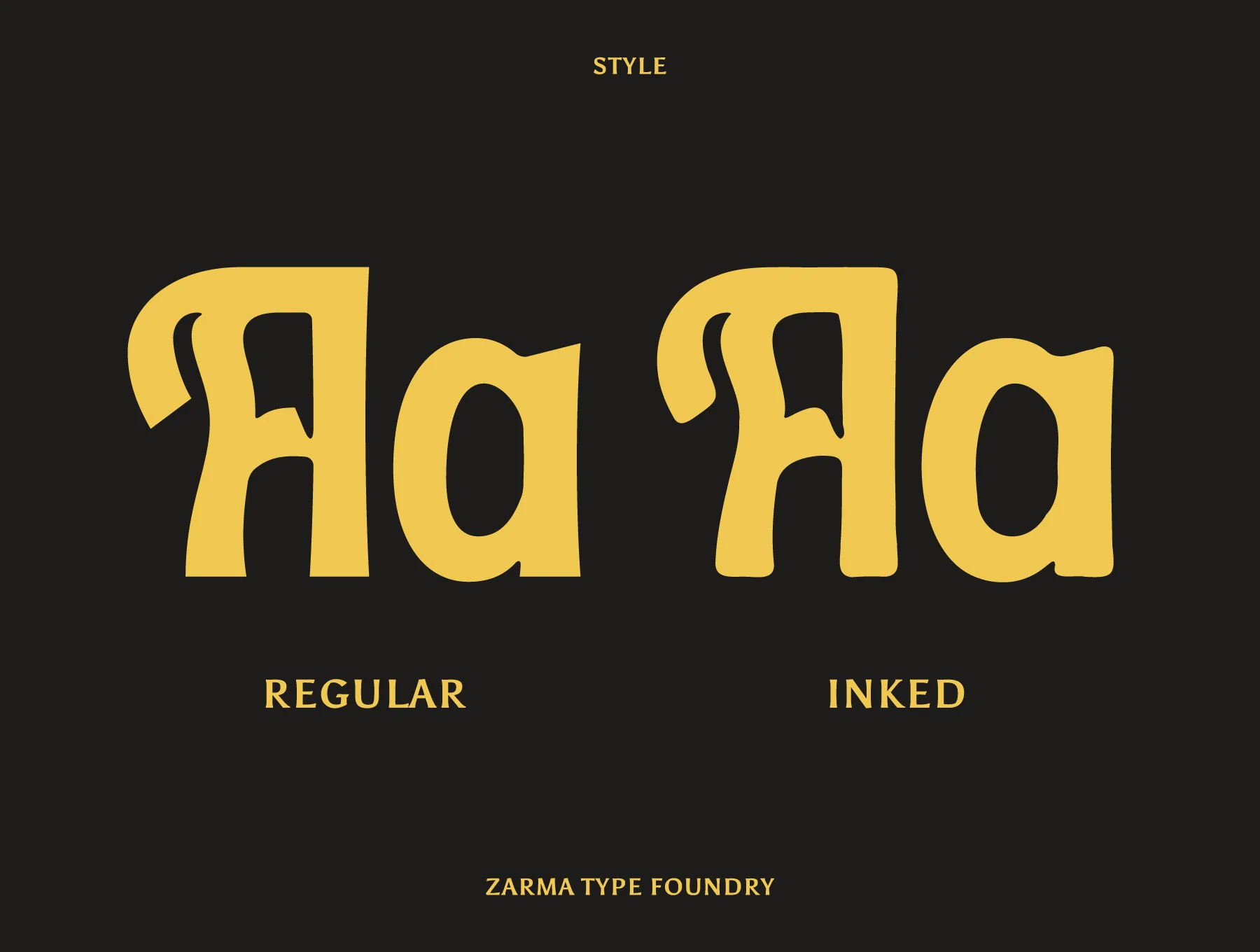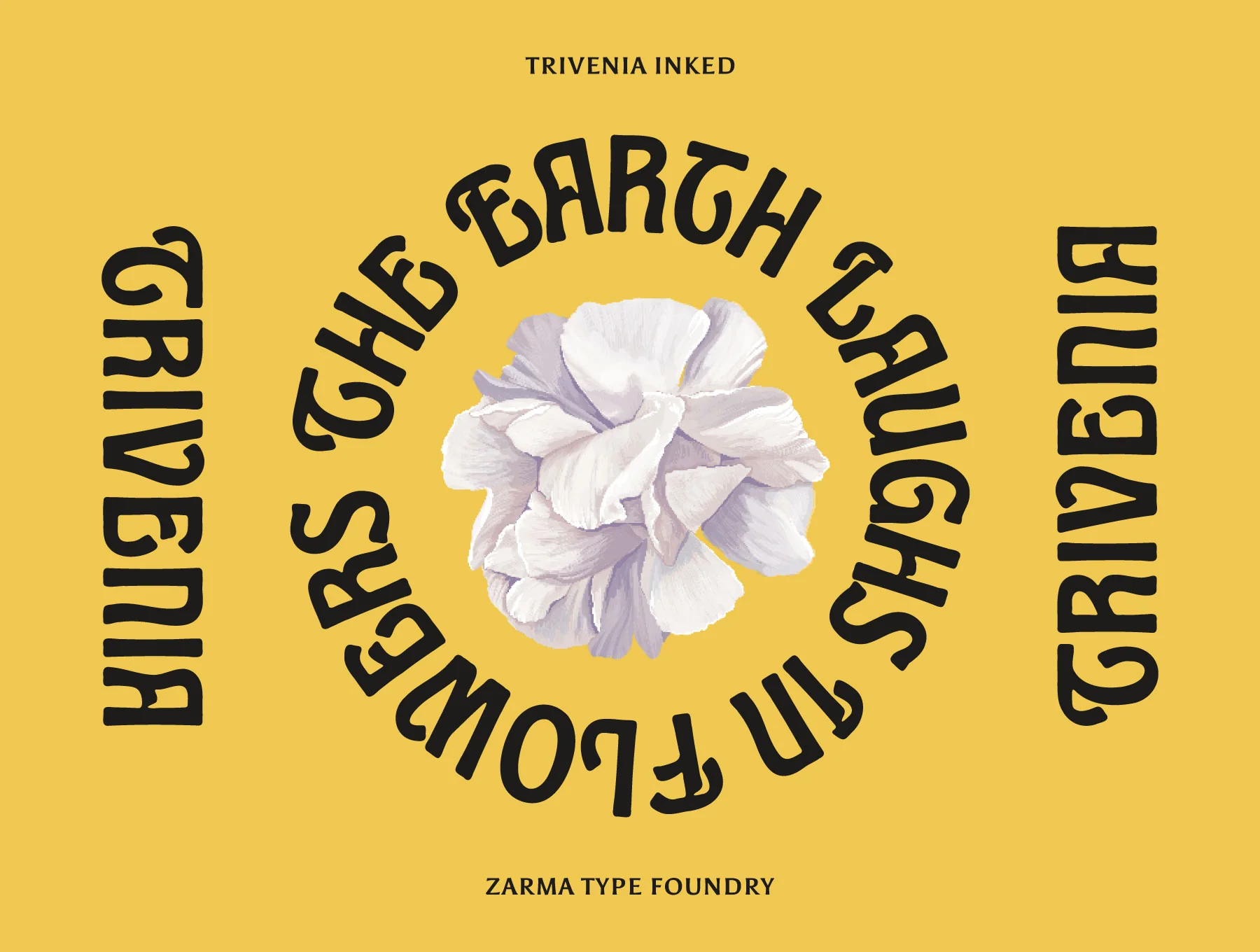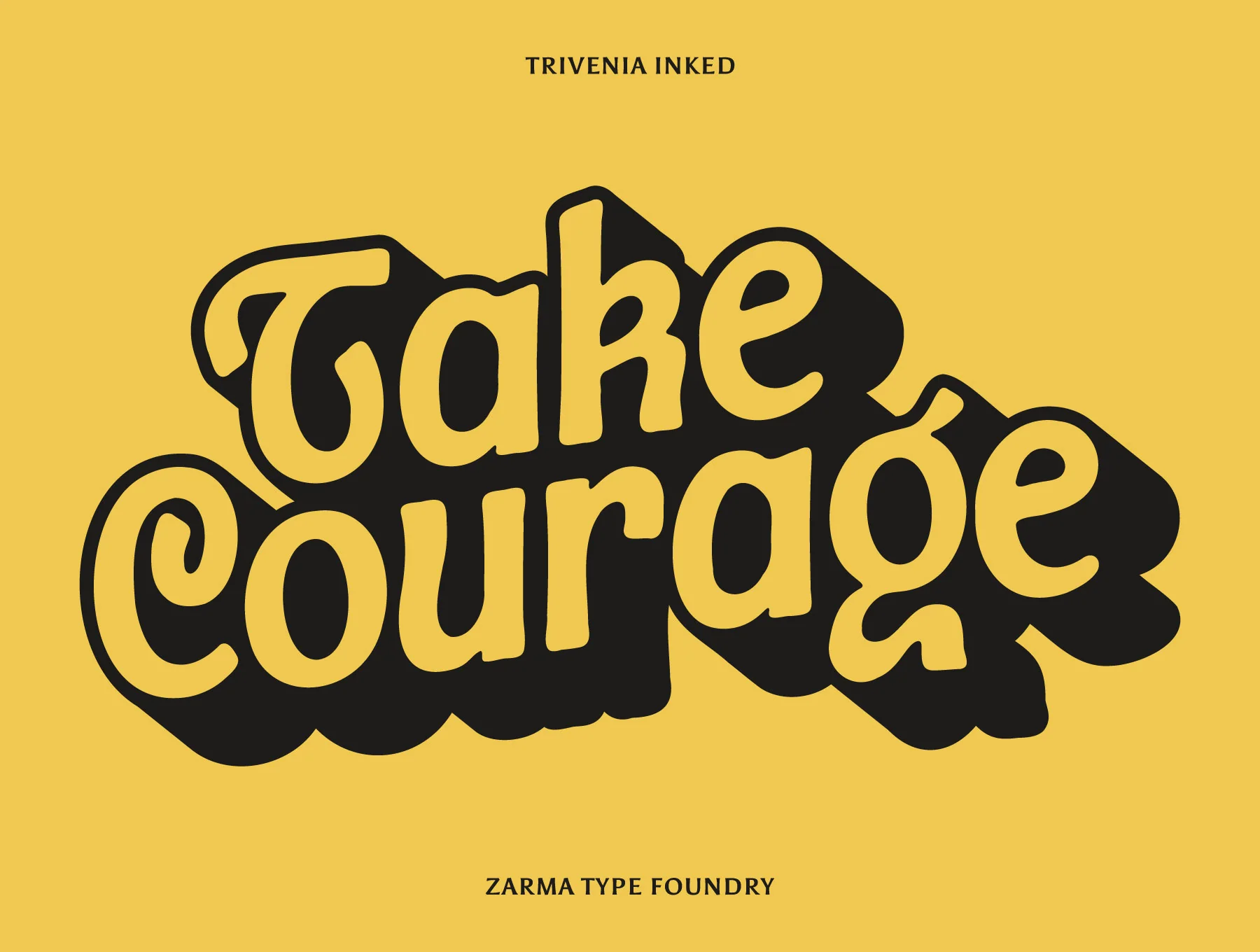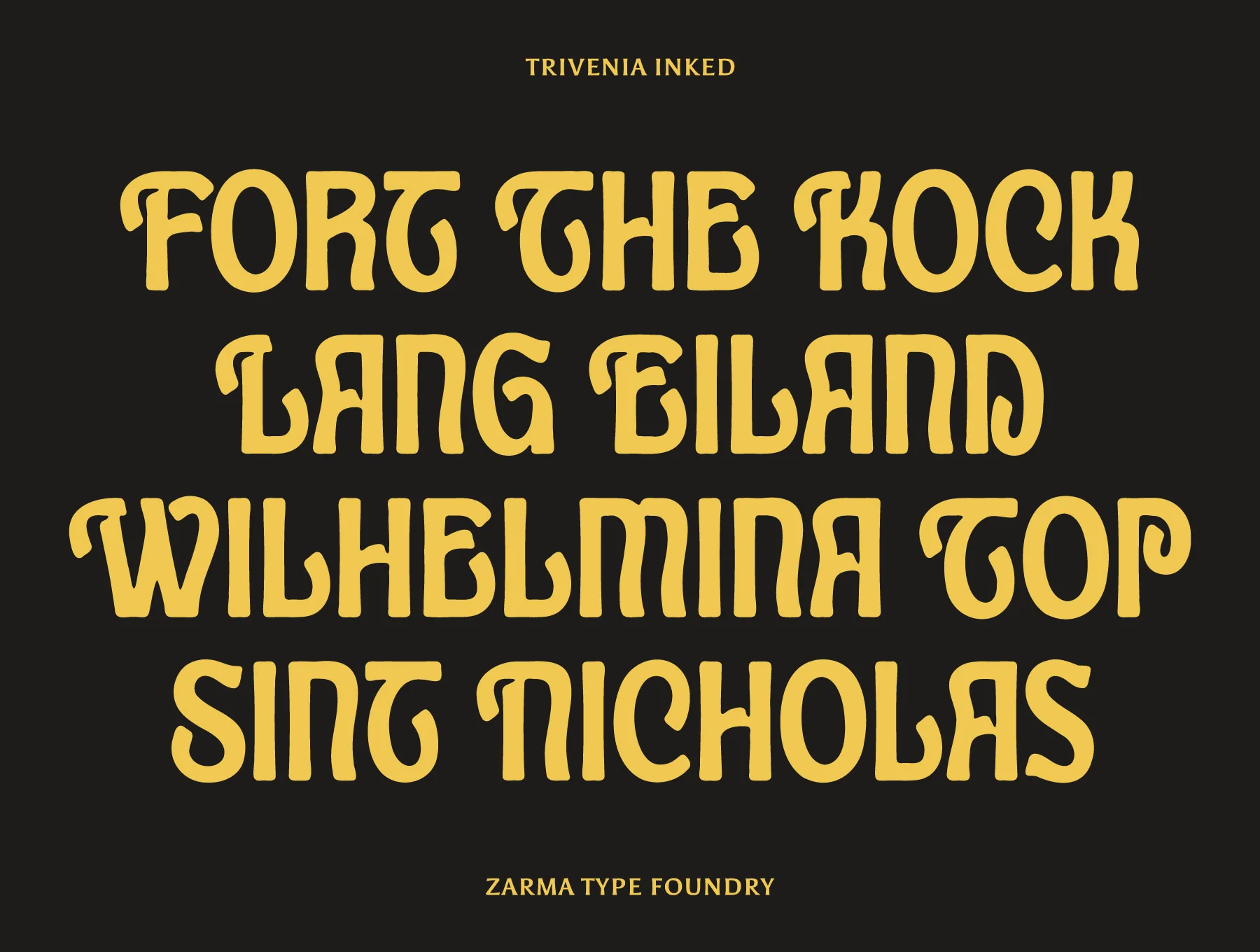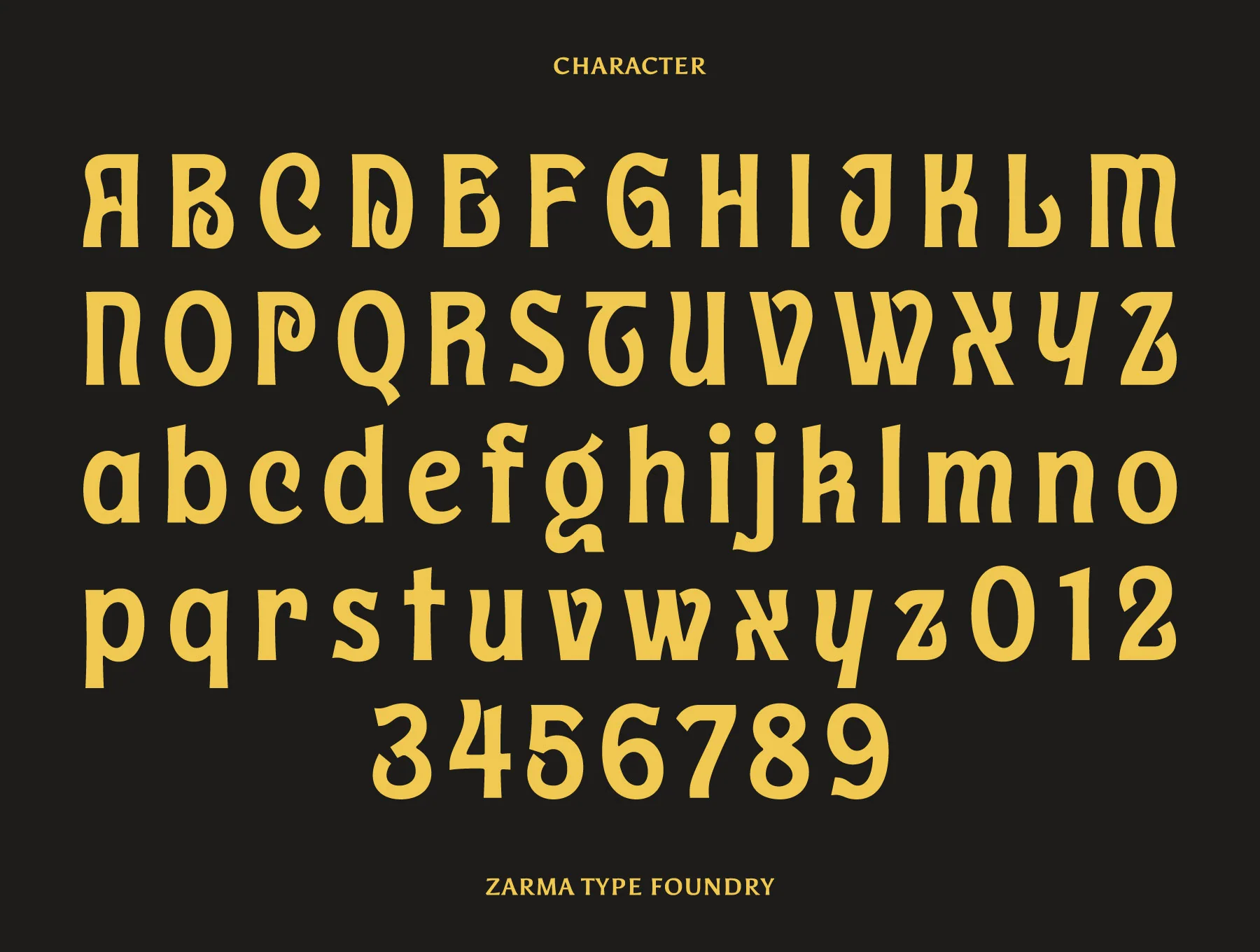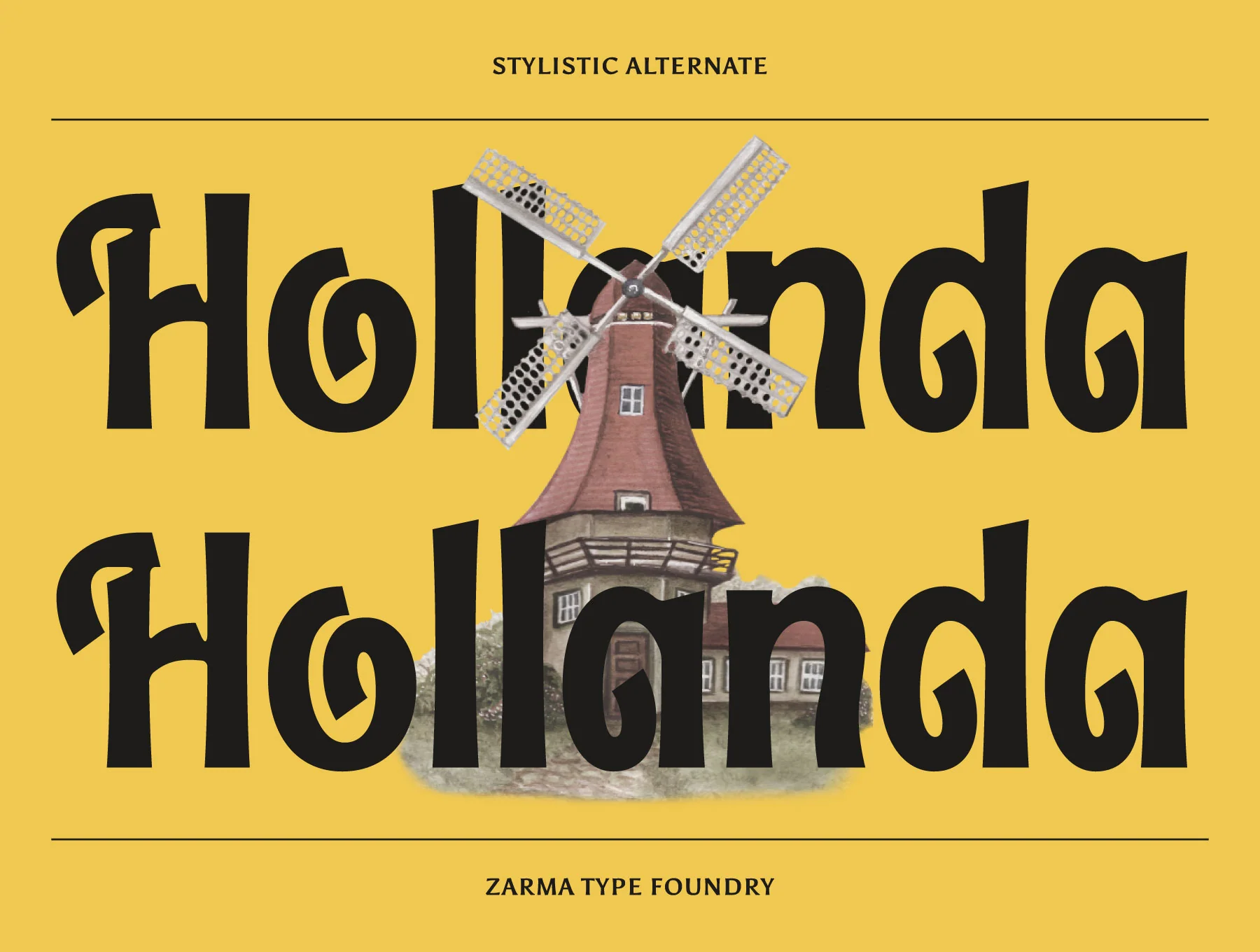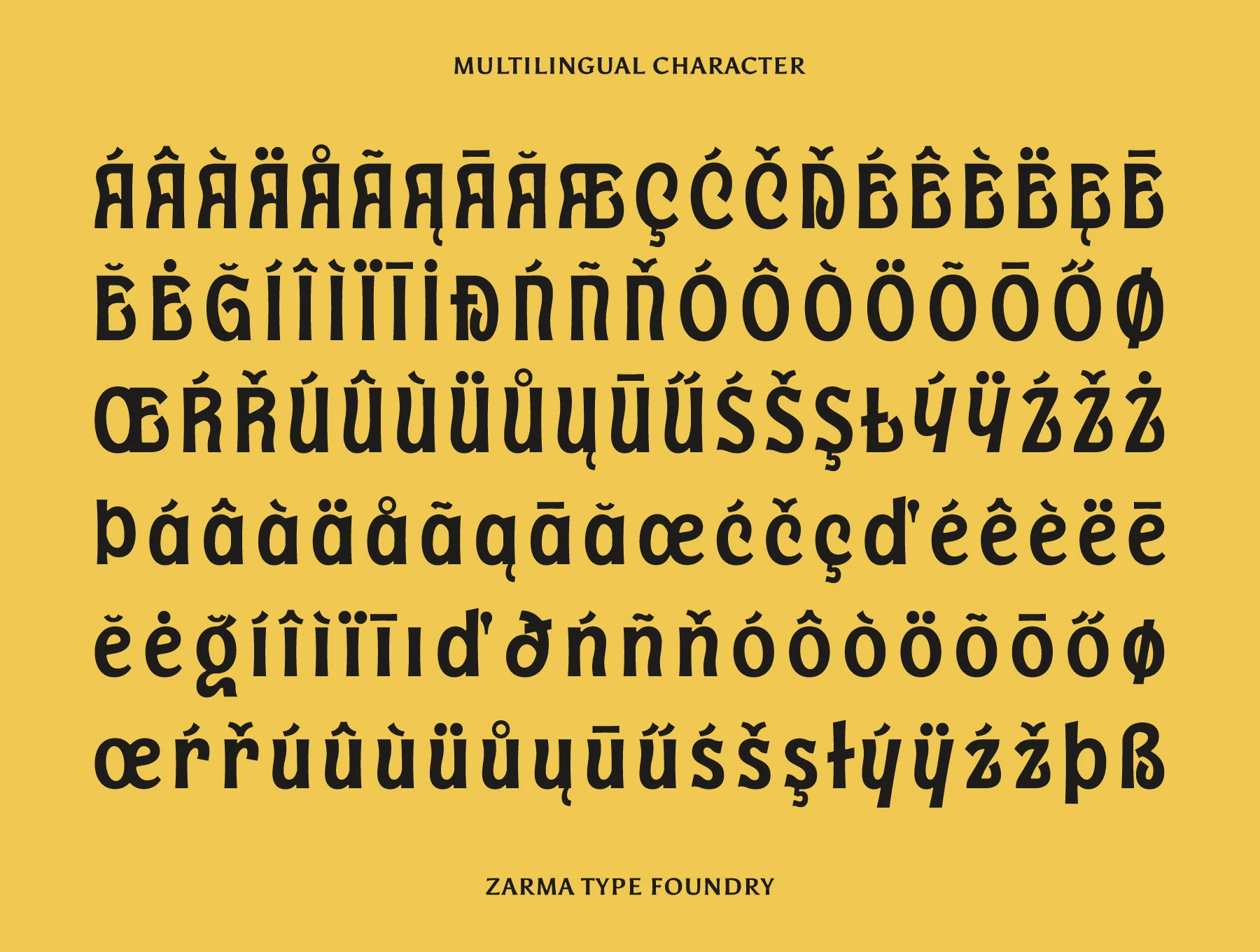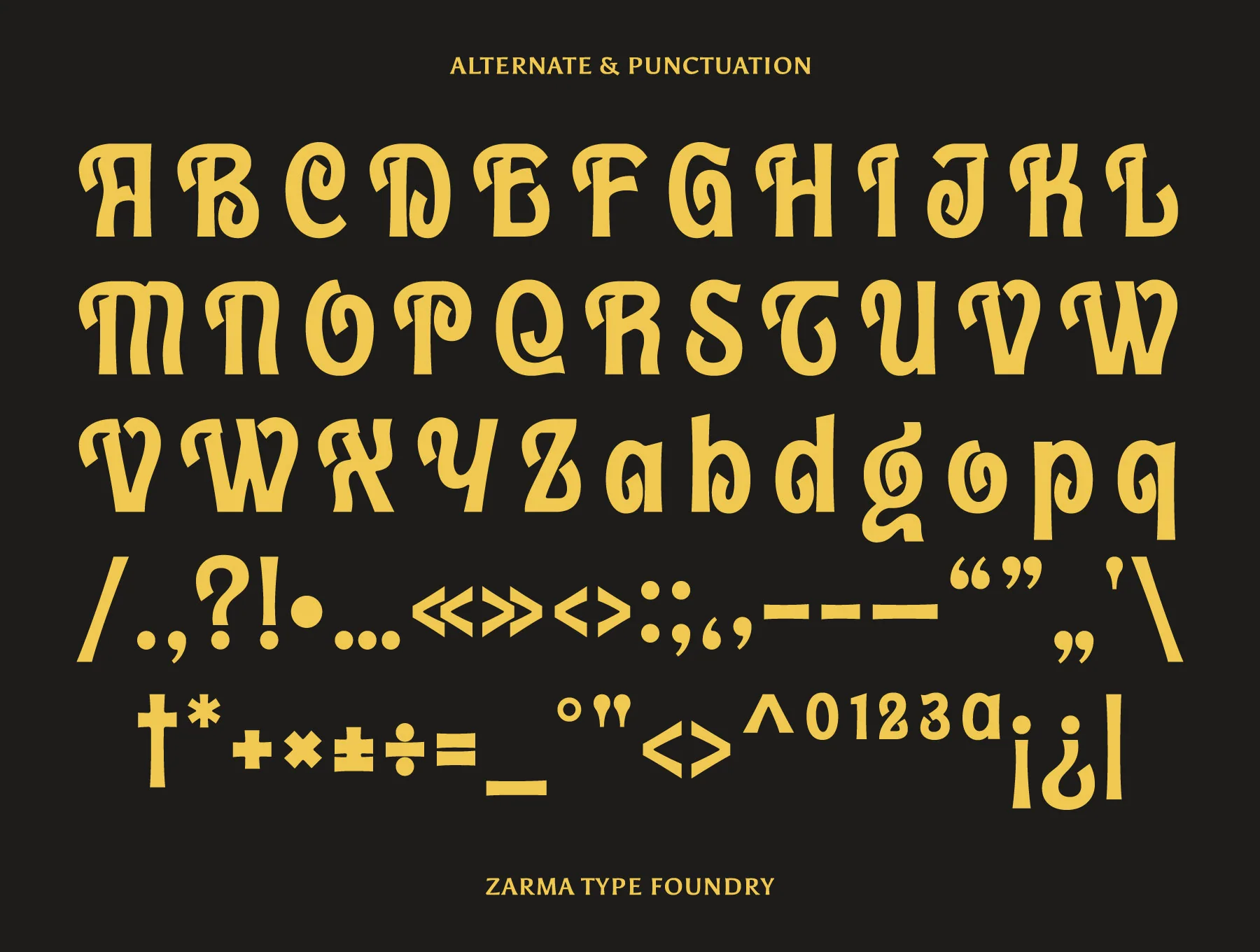
Trivenia - Modern Display Font
Distinct fusion of contemporary and vintage typography.
Capital letters, small letters, numbers, and punctuation
Alternative stylistic characters
Two versions: Regular and Inked
Meet Trivenia, a display font inspired by Baldur Type Specimen, blending retro forms with contemporary curves. Its psychedelic, playful character suits branding, logos, and standout display designs. Includes Trivenia Regular and Trivenia Inked. Access alternates via Glyphs in Photoshop (Window > Glyphs) or Illustrator (Type > Glyphs).